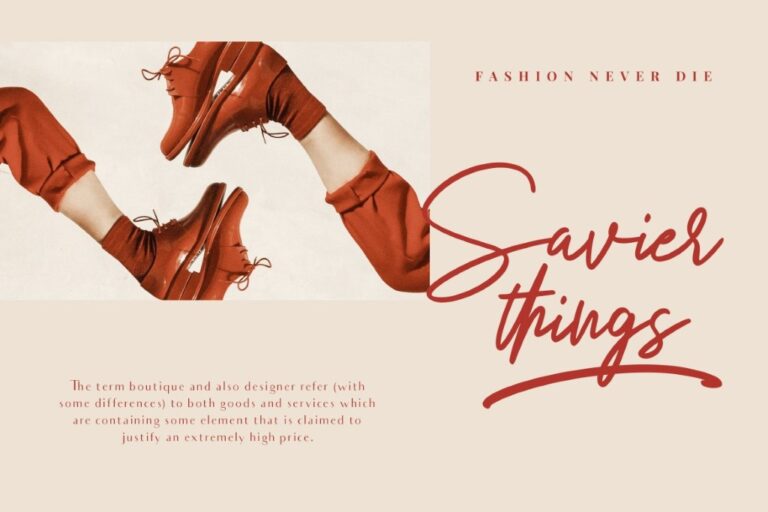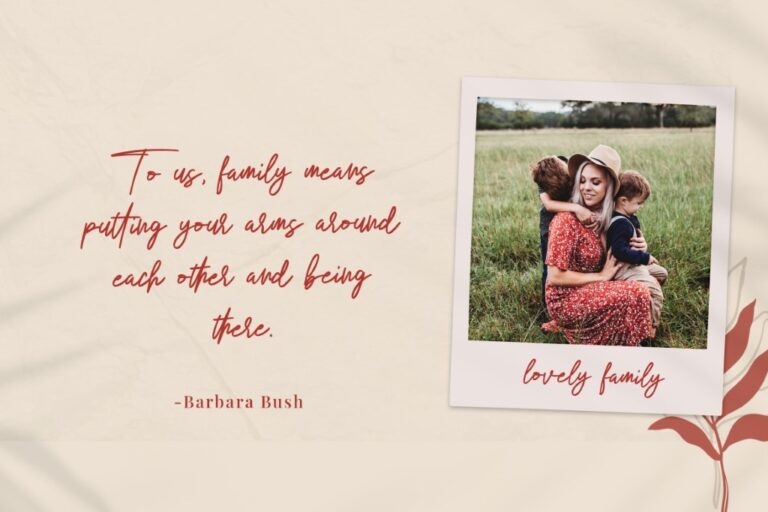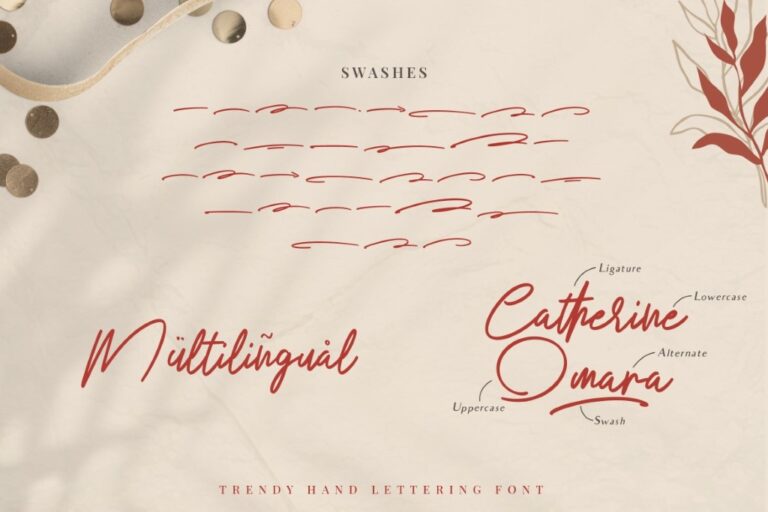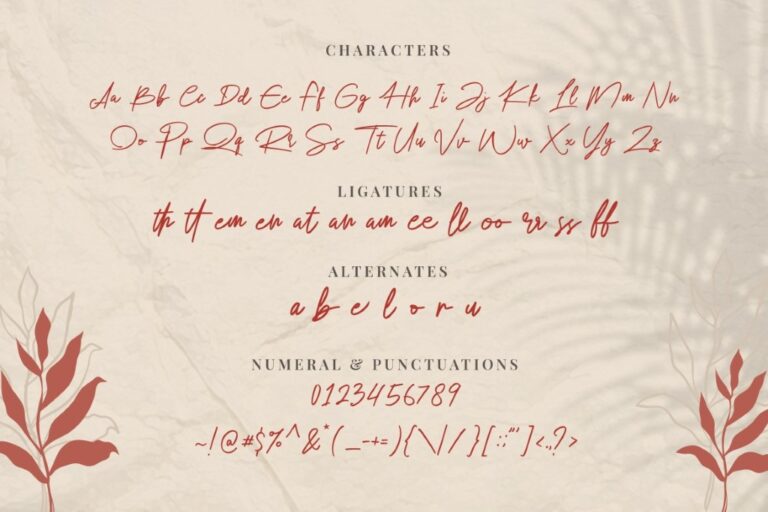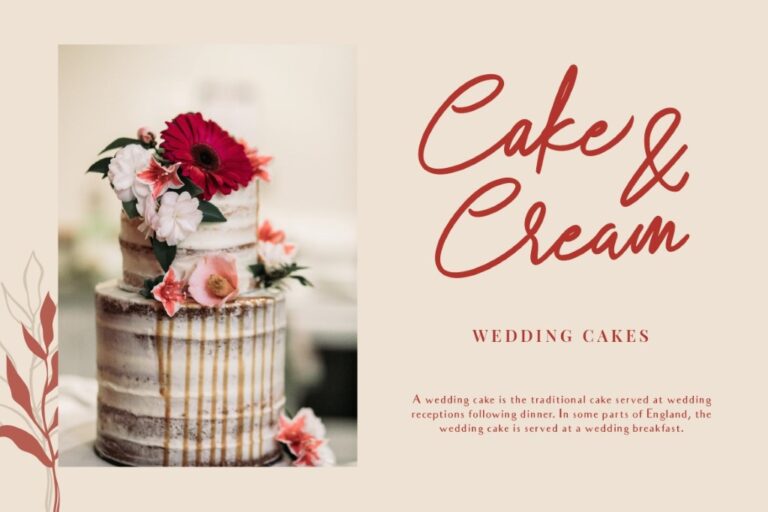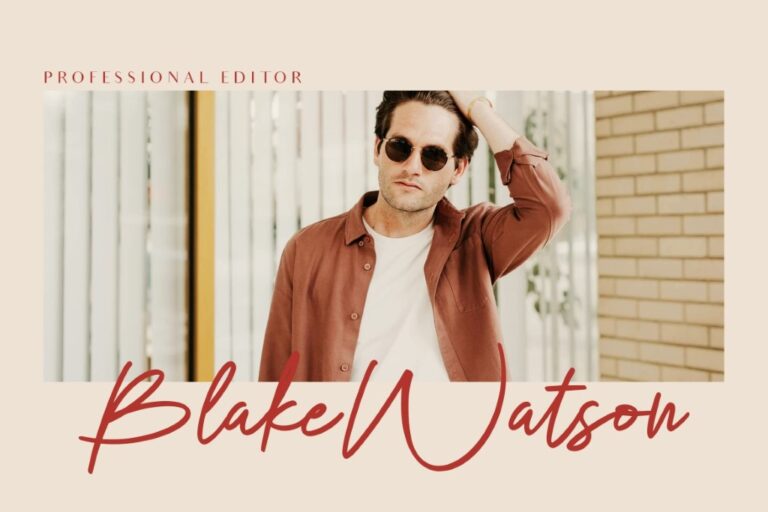
Winlove
Winlove is a modern script font made manually in paper with love and careness.
Good and suitable for modern design project such as blog, web, logo, clothing, advertisement and book cover